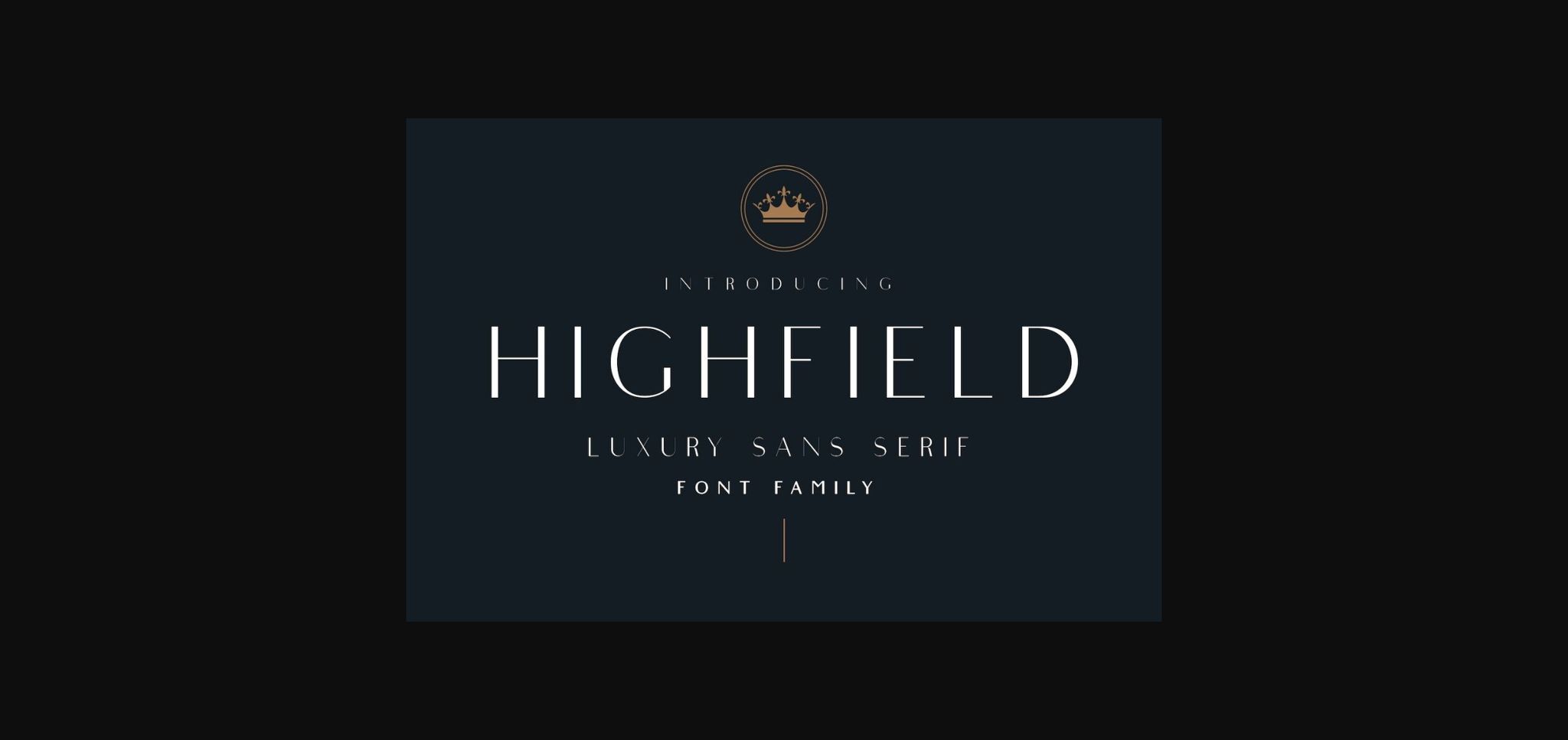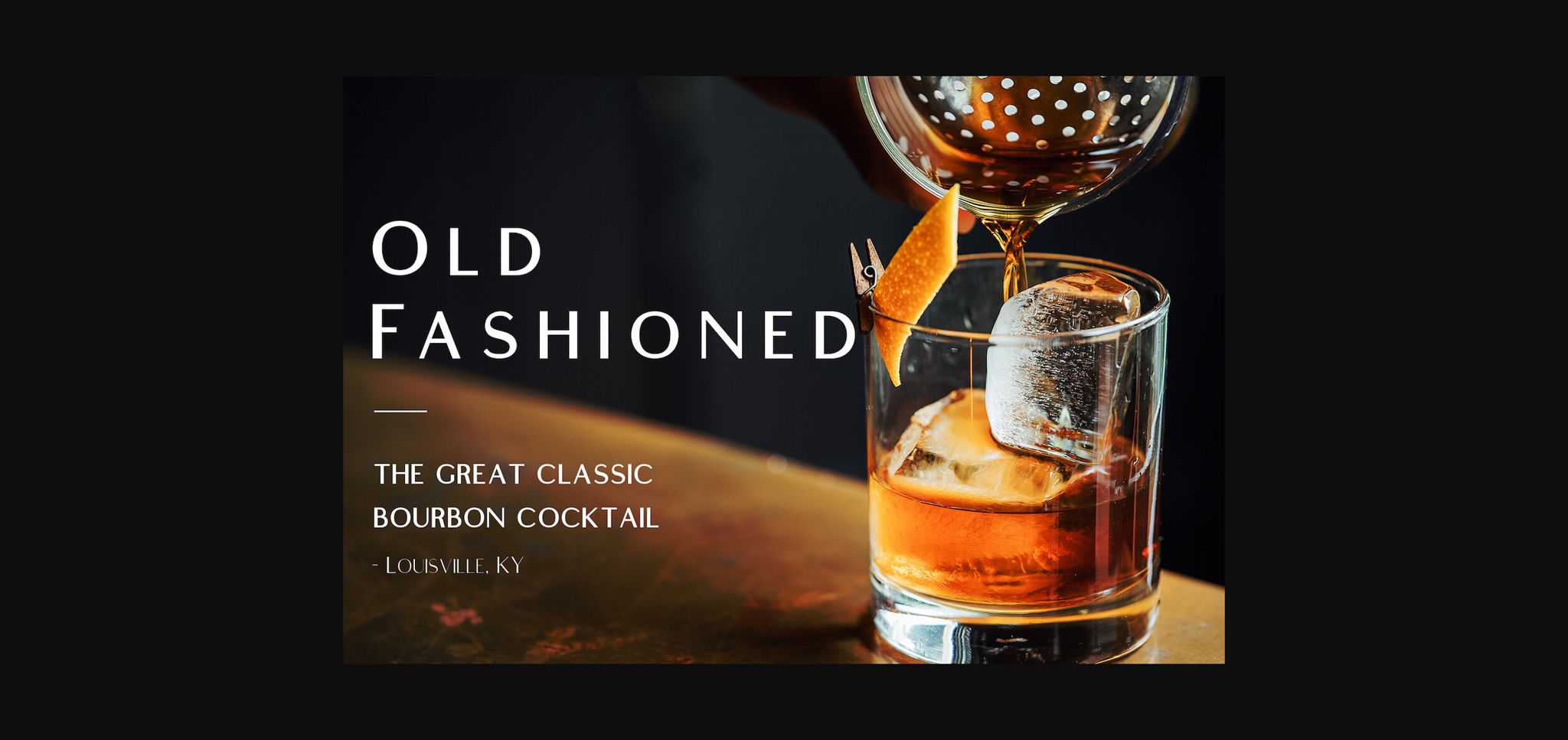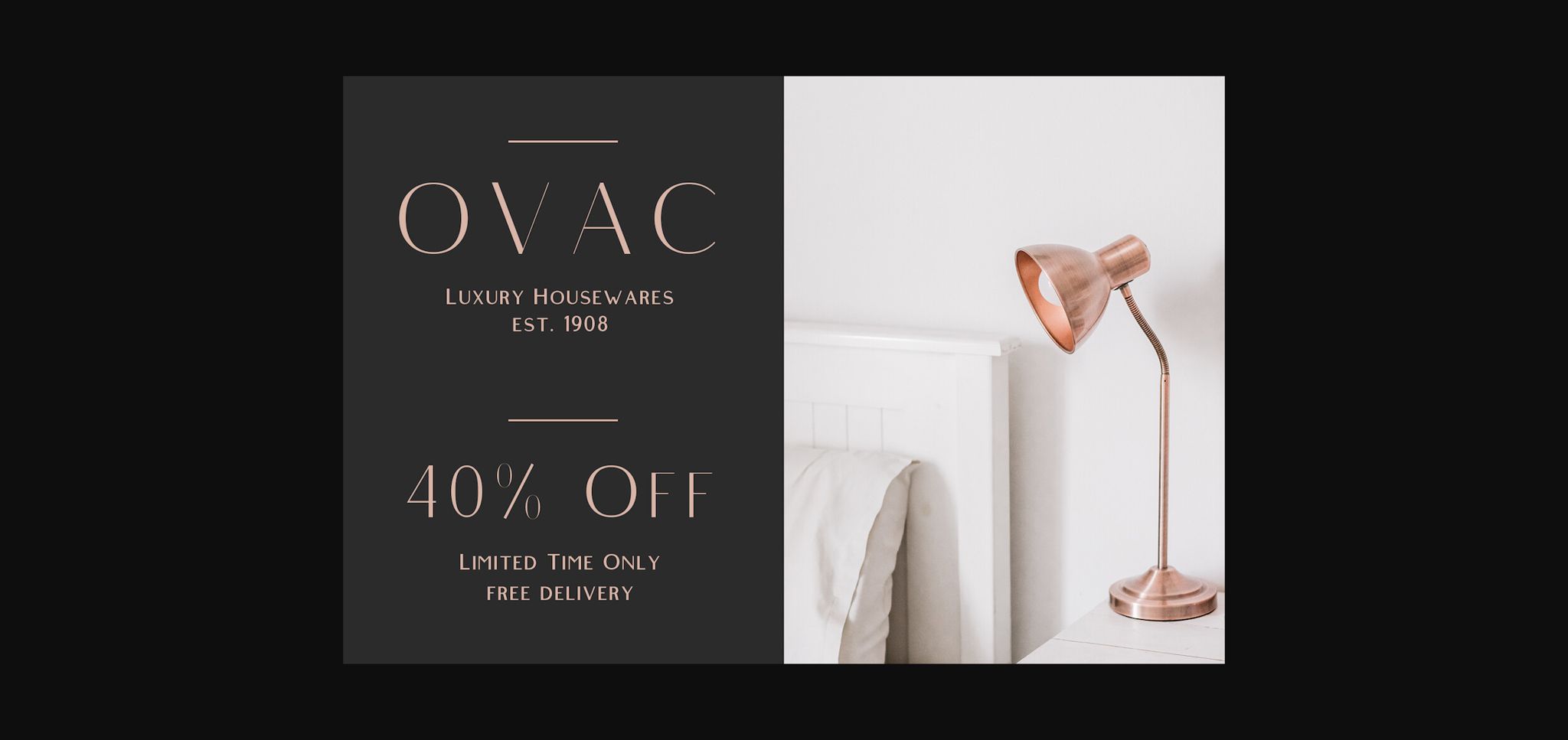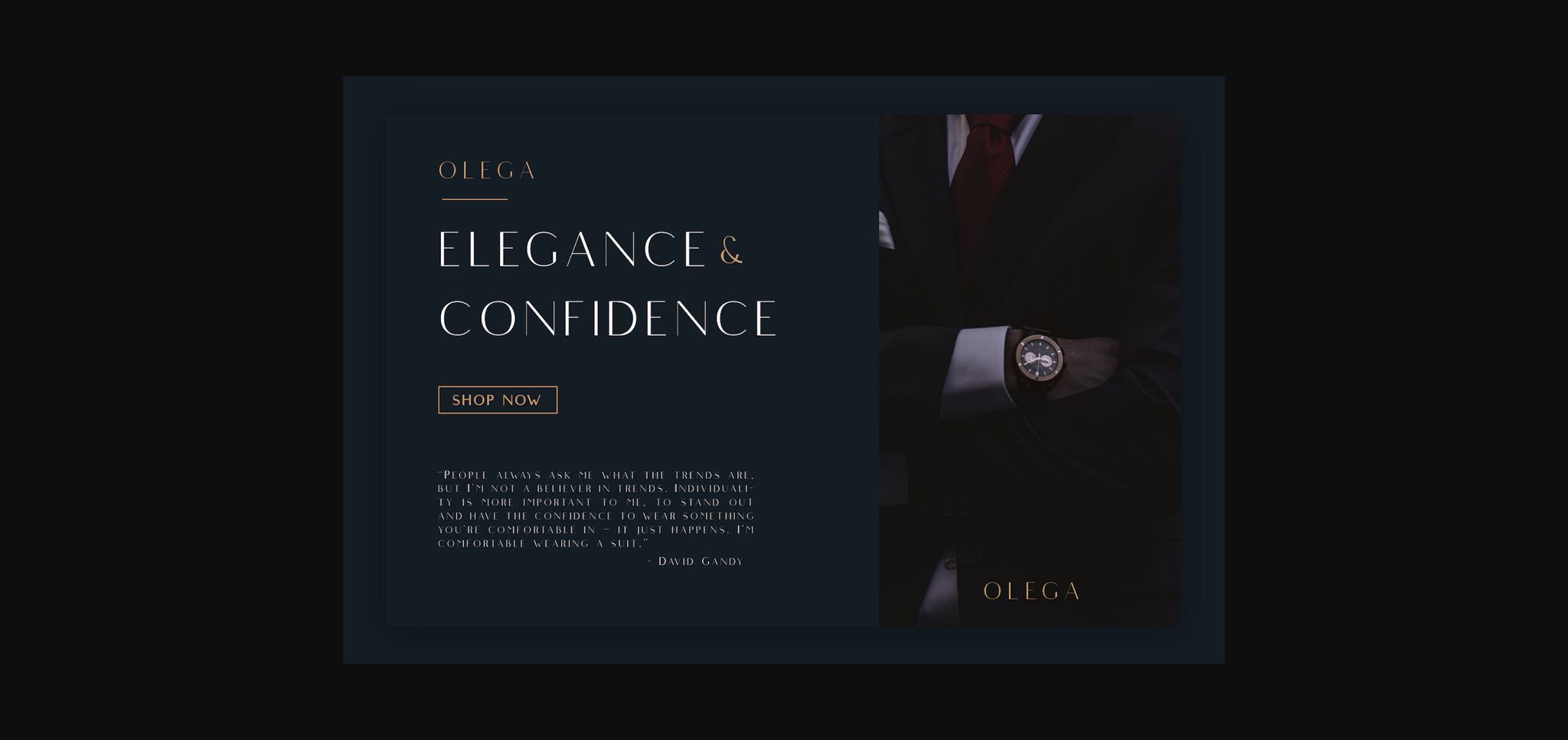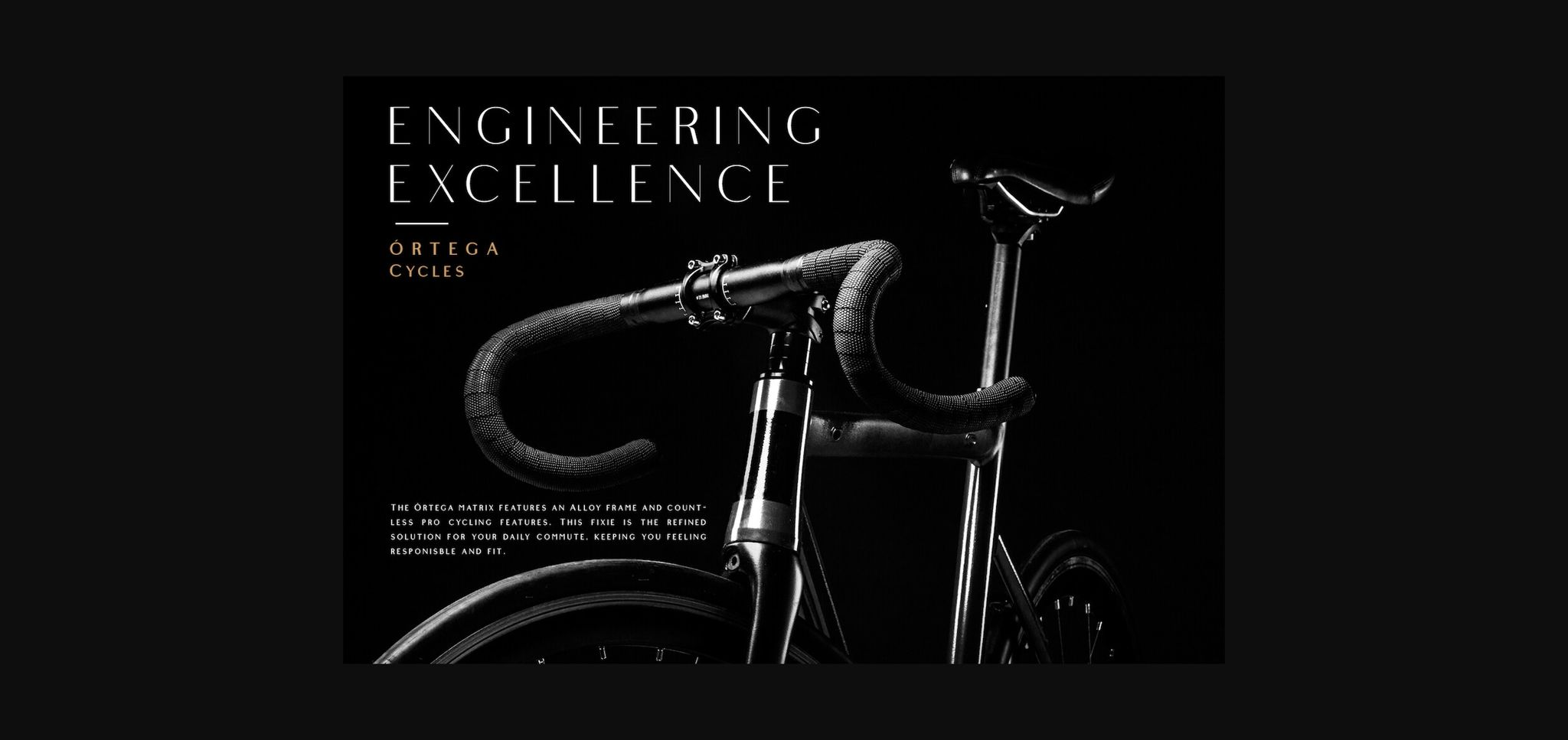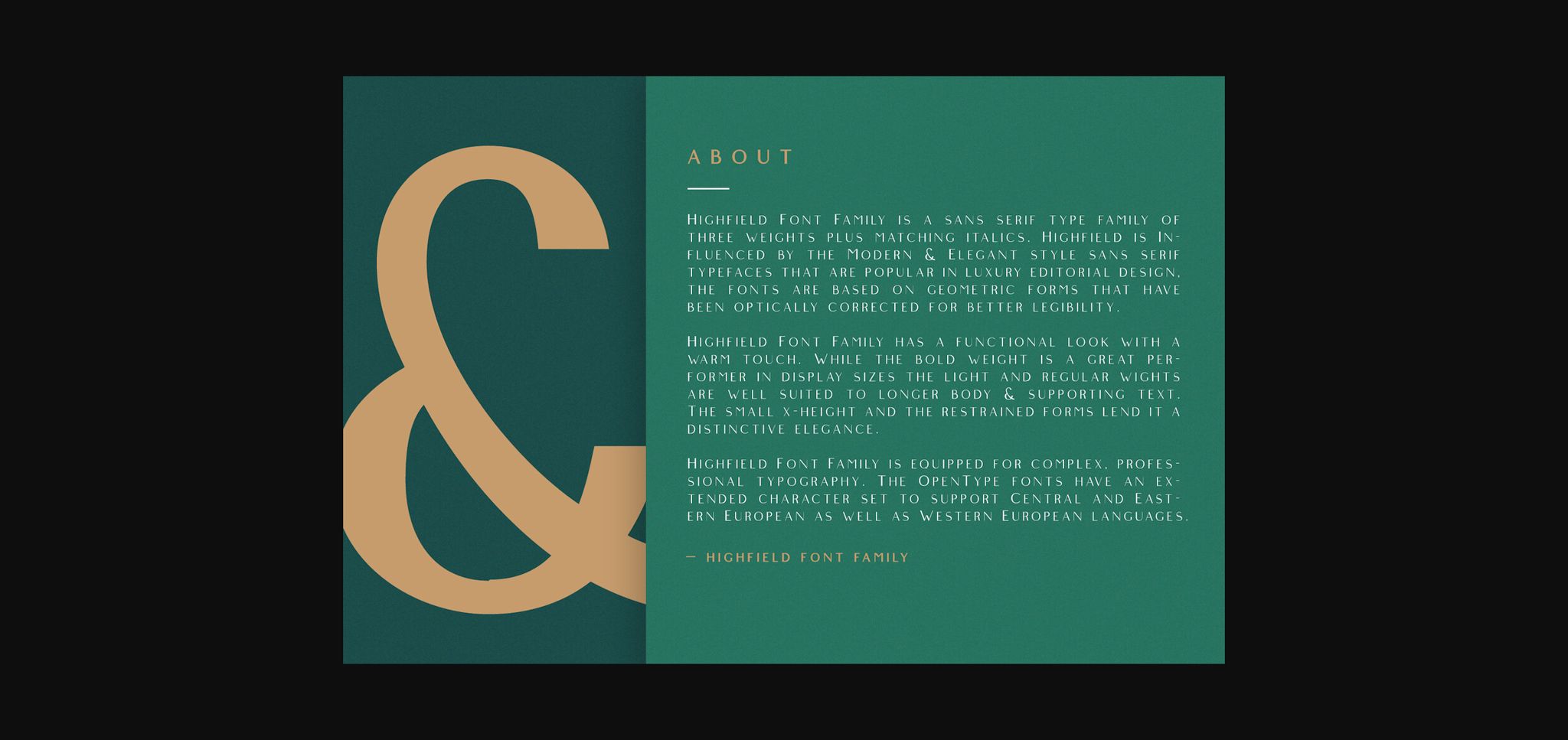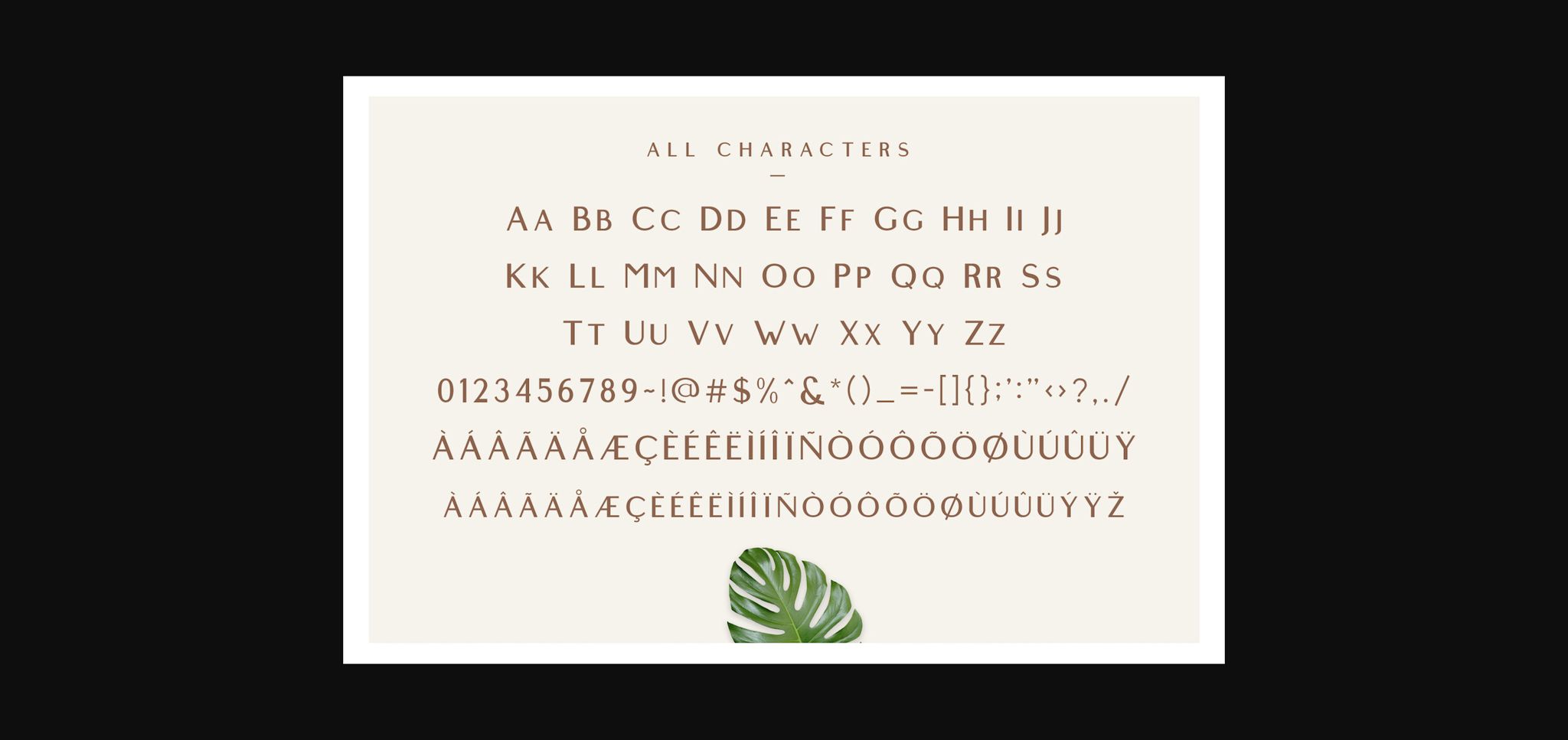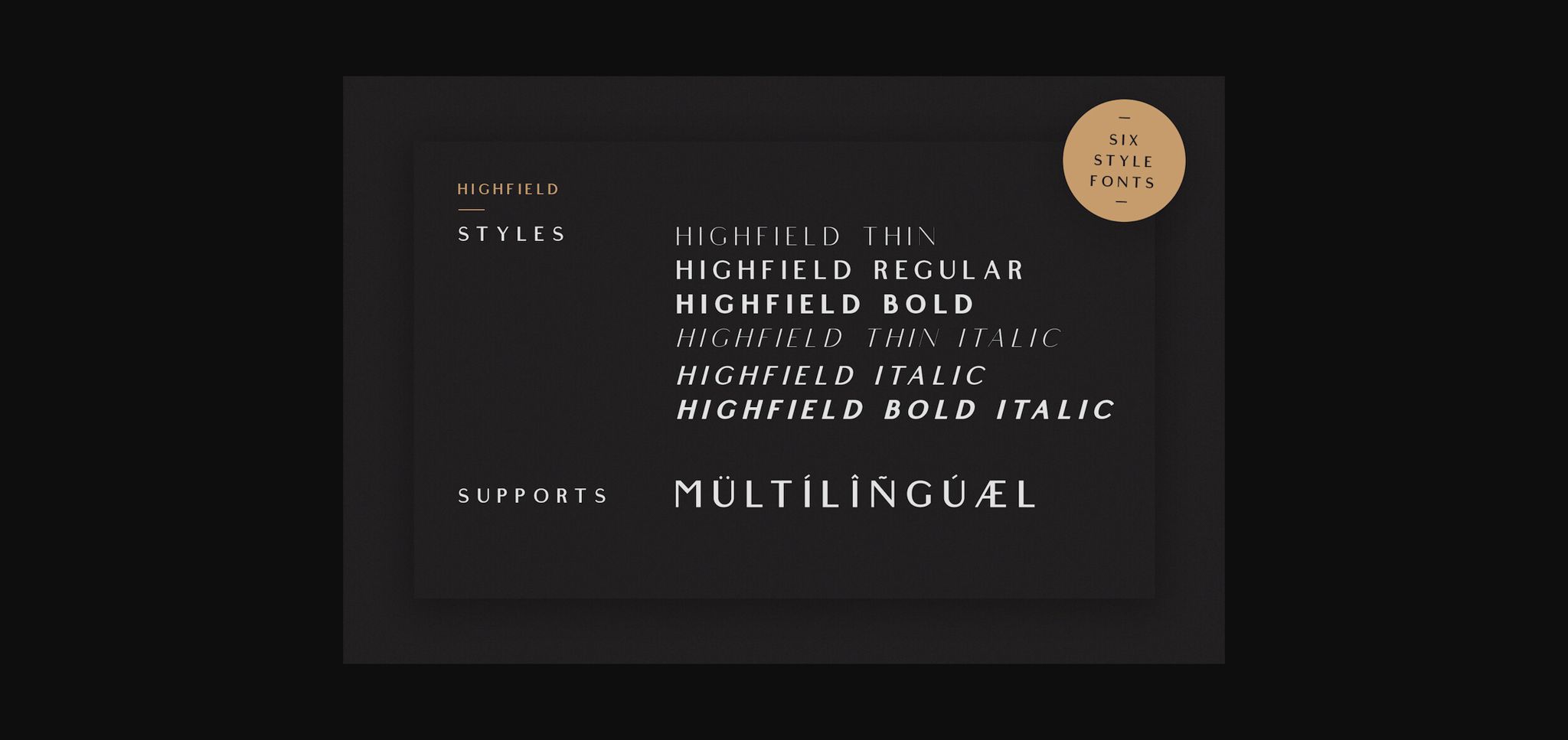
About Highfield Font
Highfield is a luxury sans serif type family of three weights plus matching italics. Itβs influenced by the modern and elegant style sans serif typefaces that are popular in high class editorial design. The fonts are based on geometric forms that have been optically corrected for better legibility.
While the bold weight is a great performer in display sizes the light and regular wights are well suited to longer body & supporting text. Highfield is equipped for complex, professional typography. The OpenType fonts have an extended character set to support Central and Eastern European as well as Western European languages.